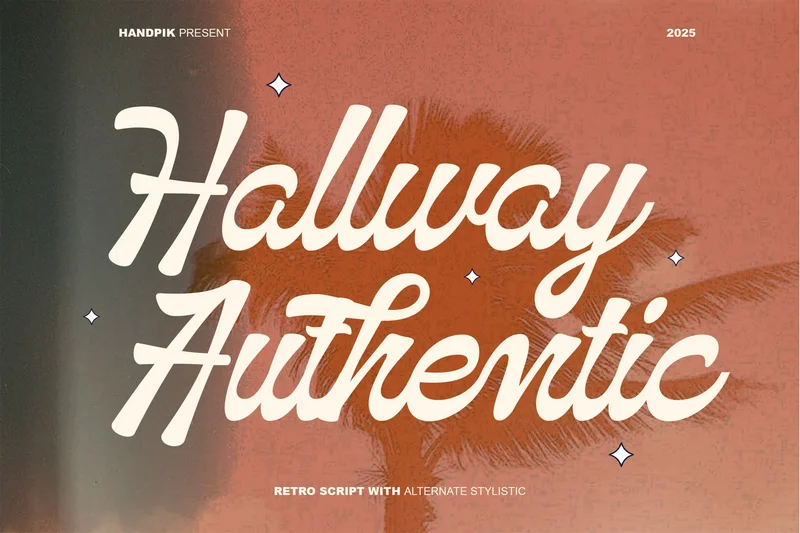
Hallway Authentic
Hallway Authentic will perfect for many project: book, magazines, logo, branding, photography, quotes, blog header, poster, advertisements, etc.